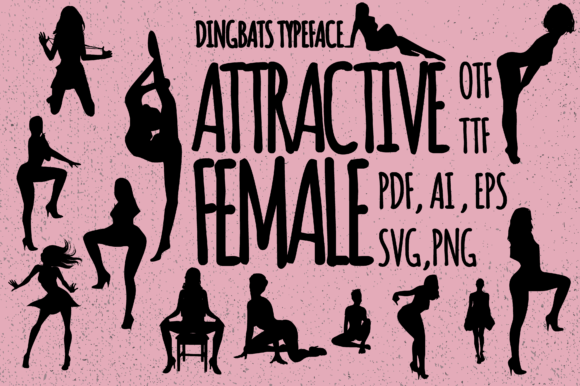
Introducing the Attractive Female Poses font, a revolutionary dingbats typeface that ignites your creativity and unleashes your inner artist. Step into a world of captivating femininity and grace, where every character embodies the allure and elegance of the female form.
Crafted with precision and an eye for detail, Attractive Female Poses is a treasure trove of alluring poses, each one a masterpiece of digital art. From playful and coquettish to seductive and alluring, this font captures the essence of femininity in all its captivating glory.
Unleash your artistic vision and let your imagination roam free. With Attractive Female Poses, you can create stunning visuals that resonate with your audience on a deeper level. Whether you're designing logos, invitations, social media graphics, or any other creative project, this font adds a touch of enchanting beauty that captivates and inspires.
Immerse yourself in a world of endless possibilities. Attractive Female Poses is the perfect font for expressing your individuality and making a statement. From delicate silhouettes to striking silhouettes, the characters in this font are versatile enough to adapt to any style or theme.
Experience the magic of Attractive Female Poses today. Let your creativity soar and create designs that leave a lasting impression. Embrace the power of femininity and watch your projects come alive with grace and allure.